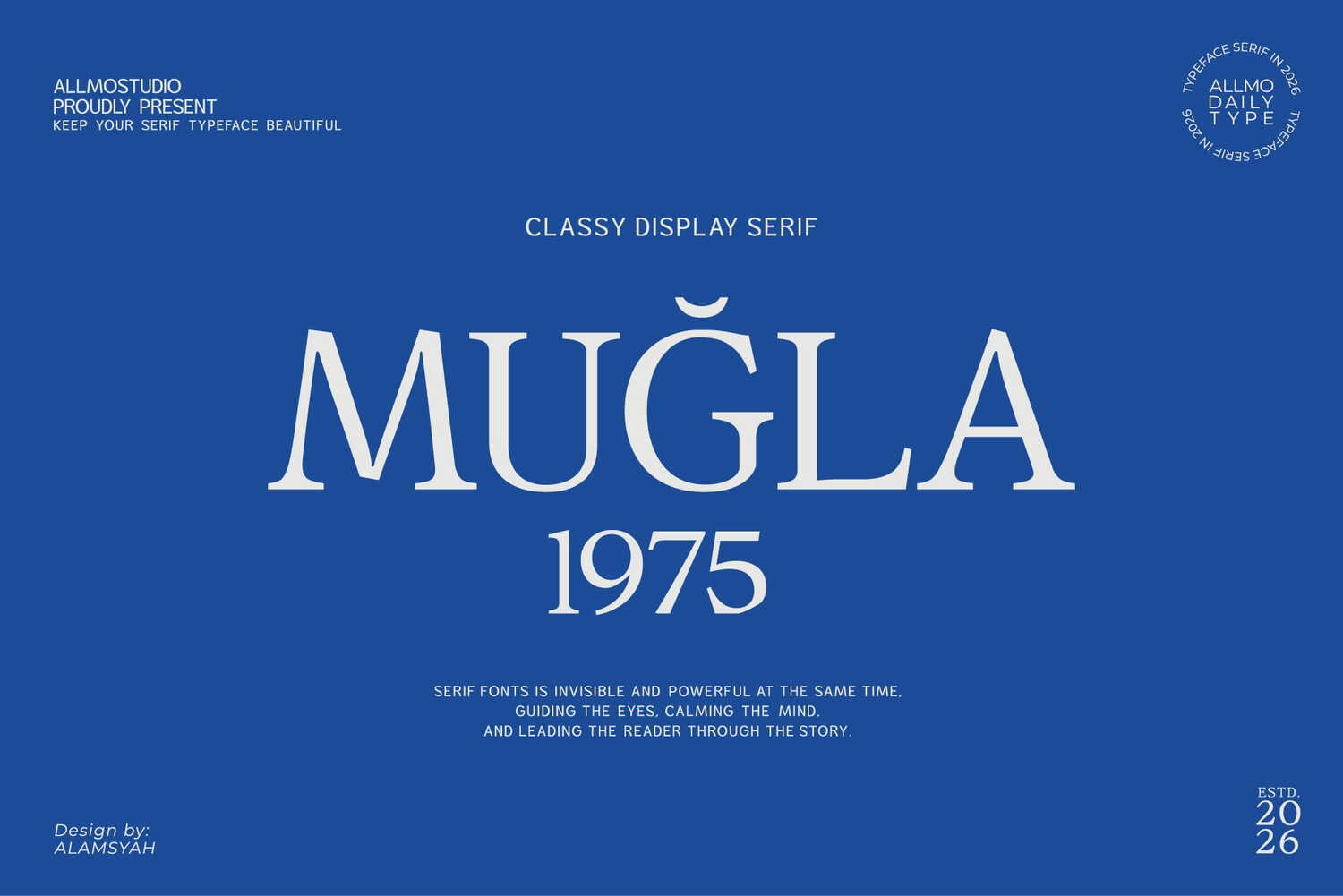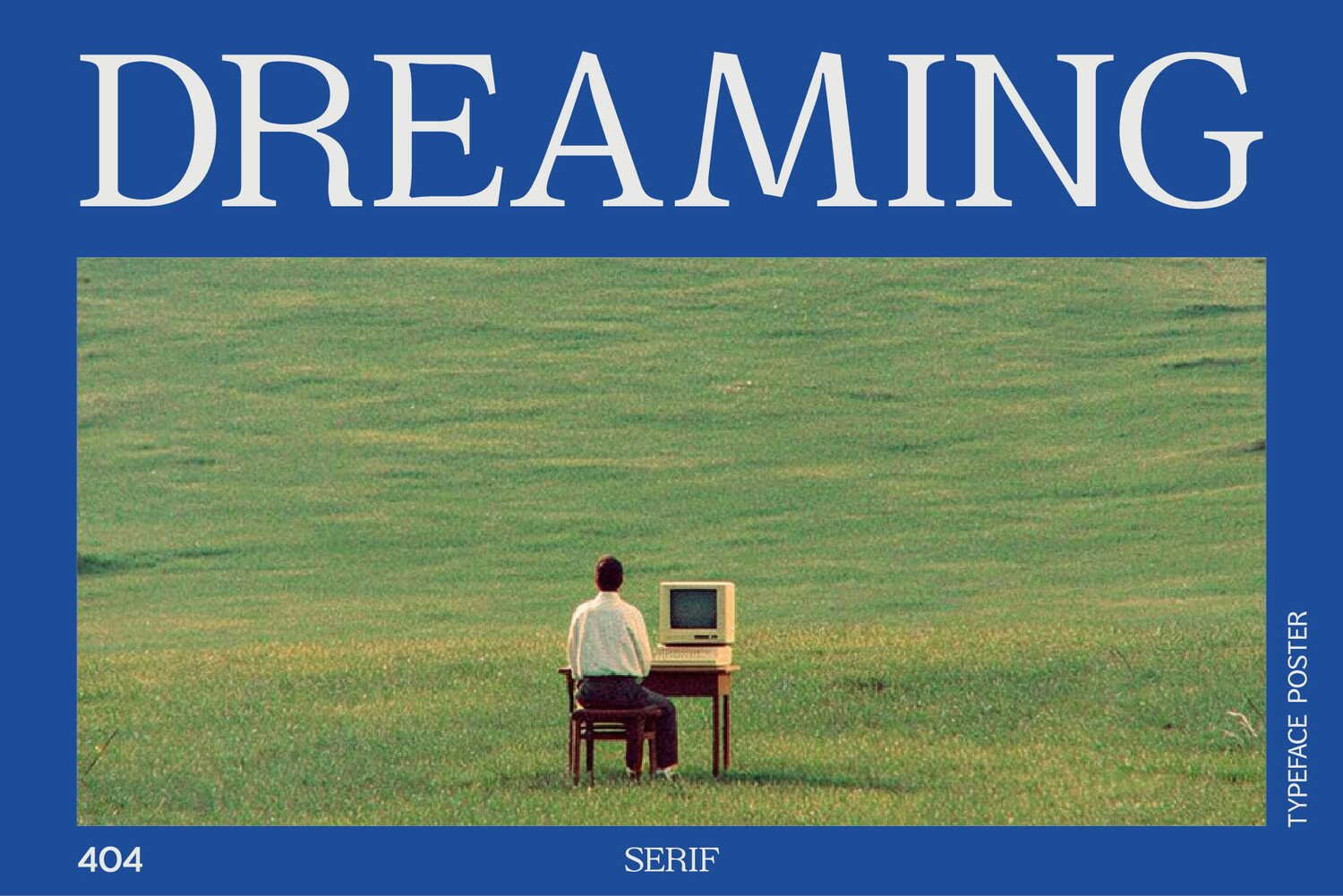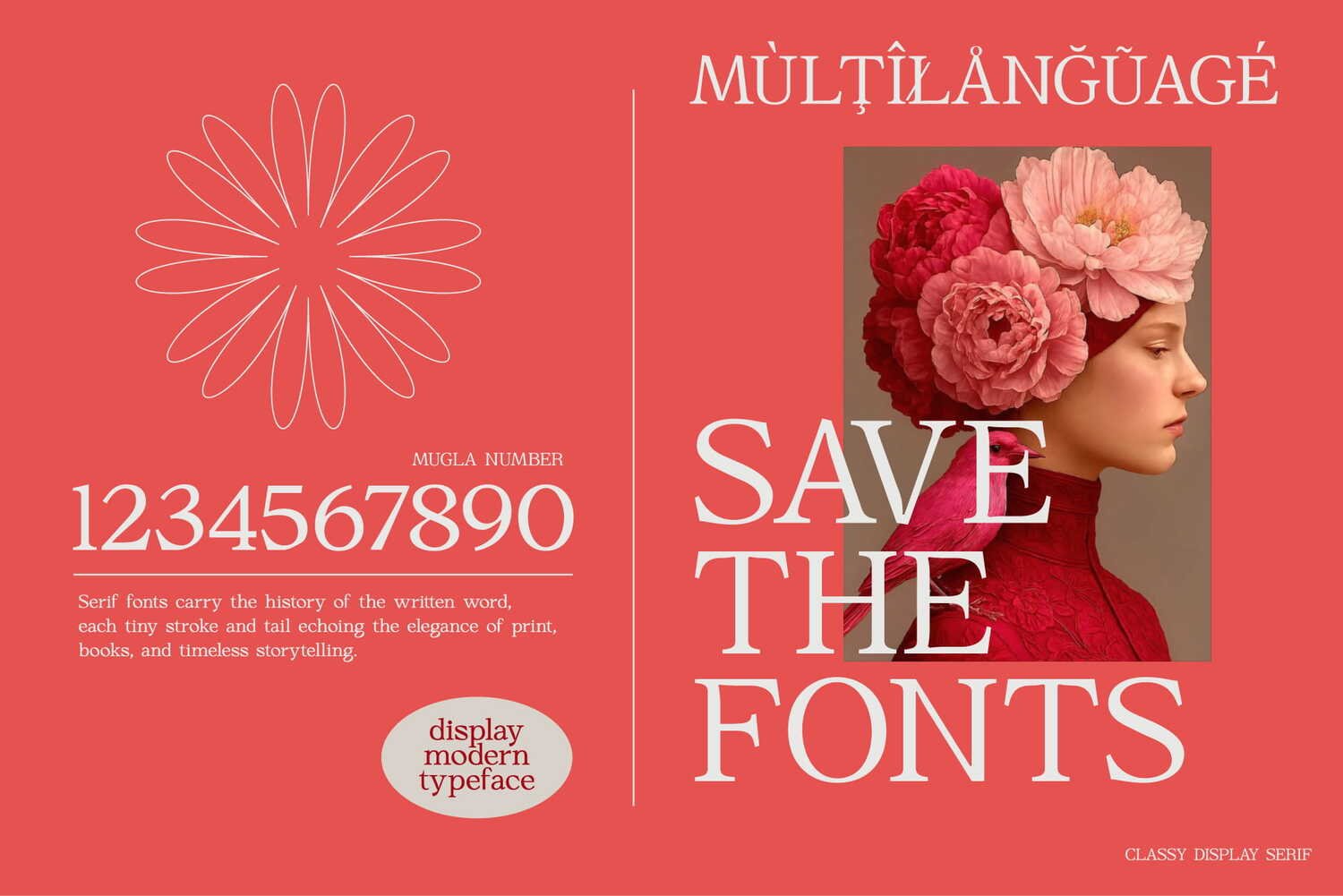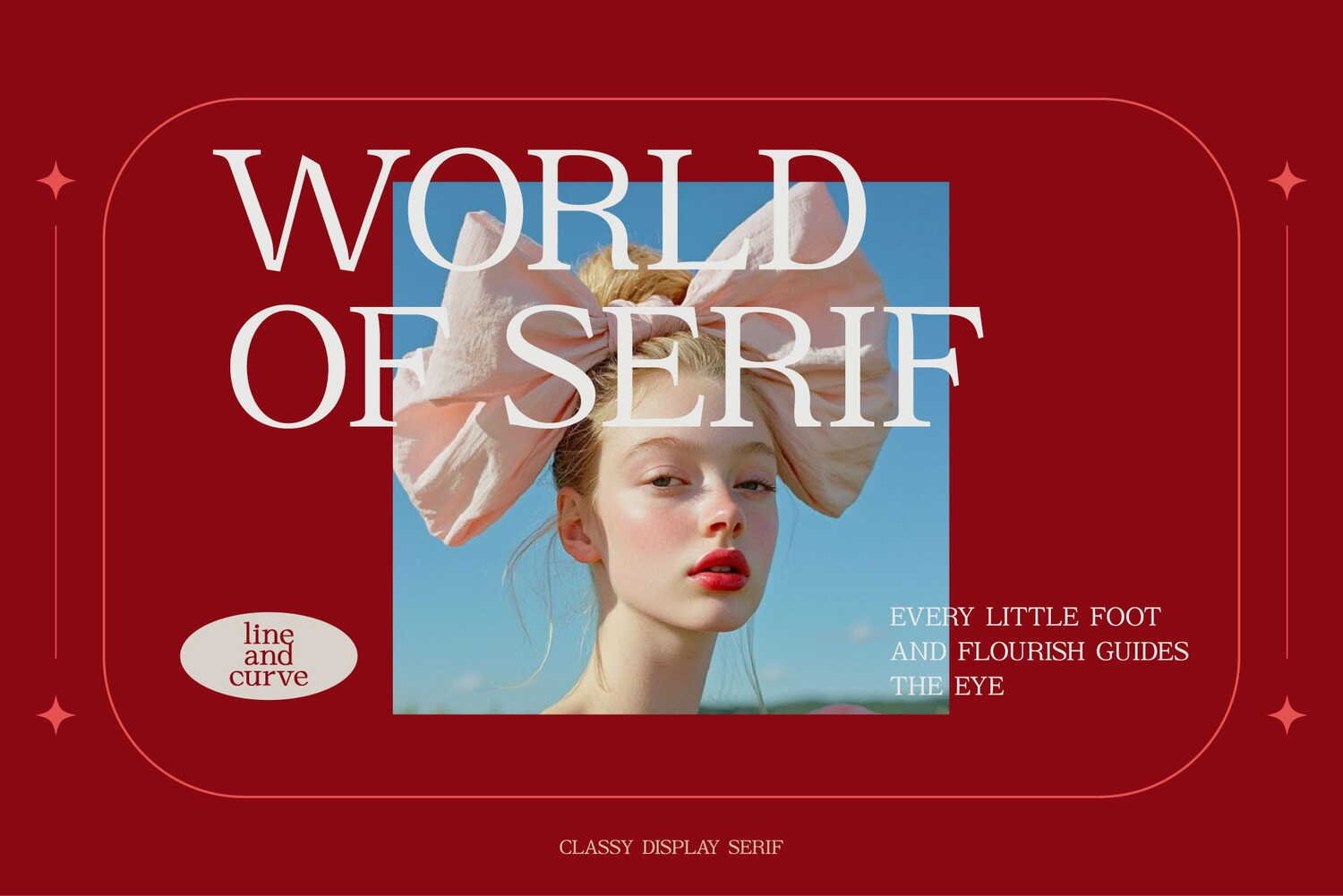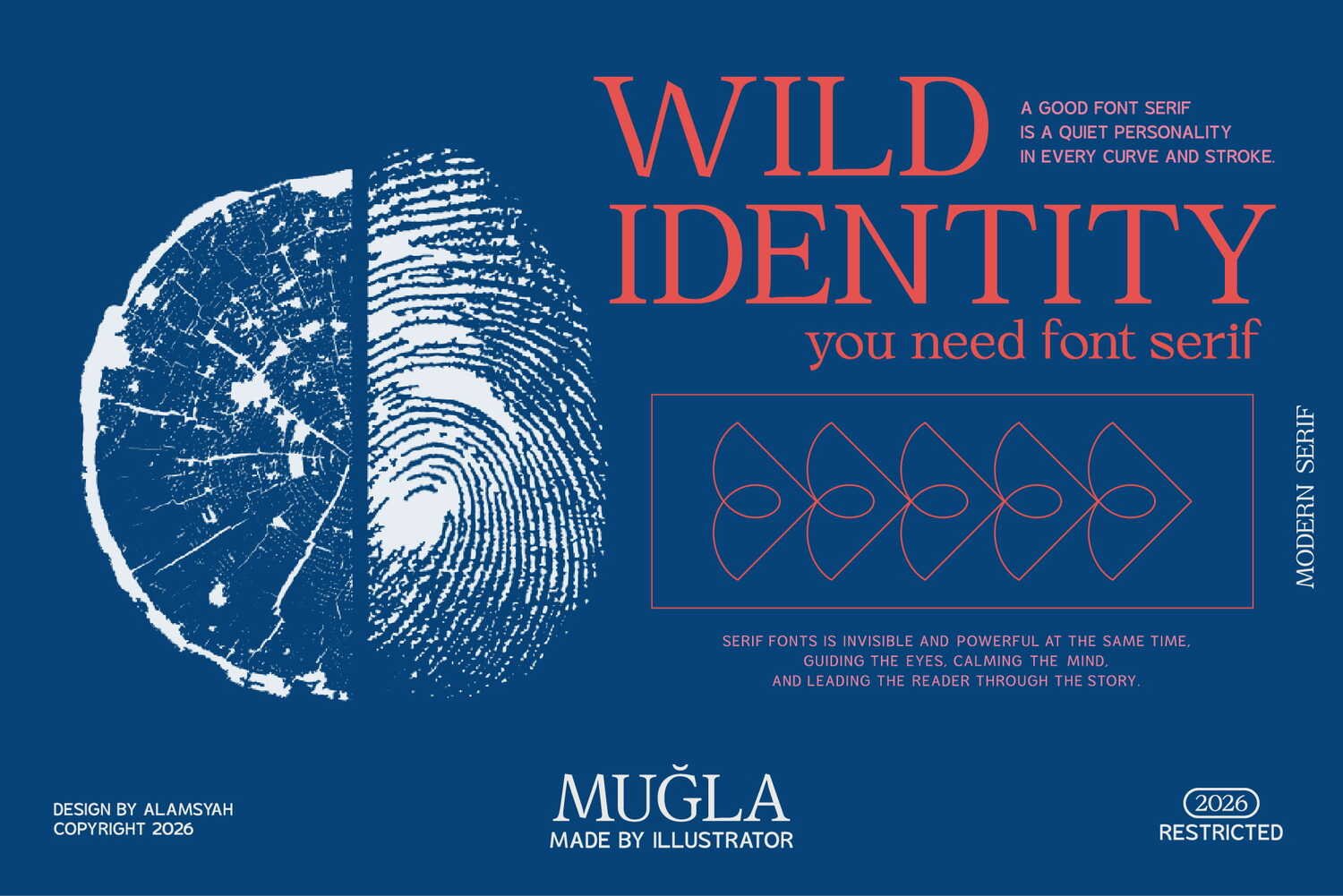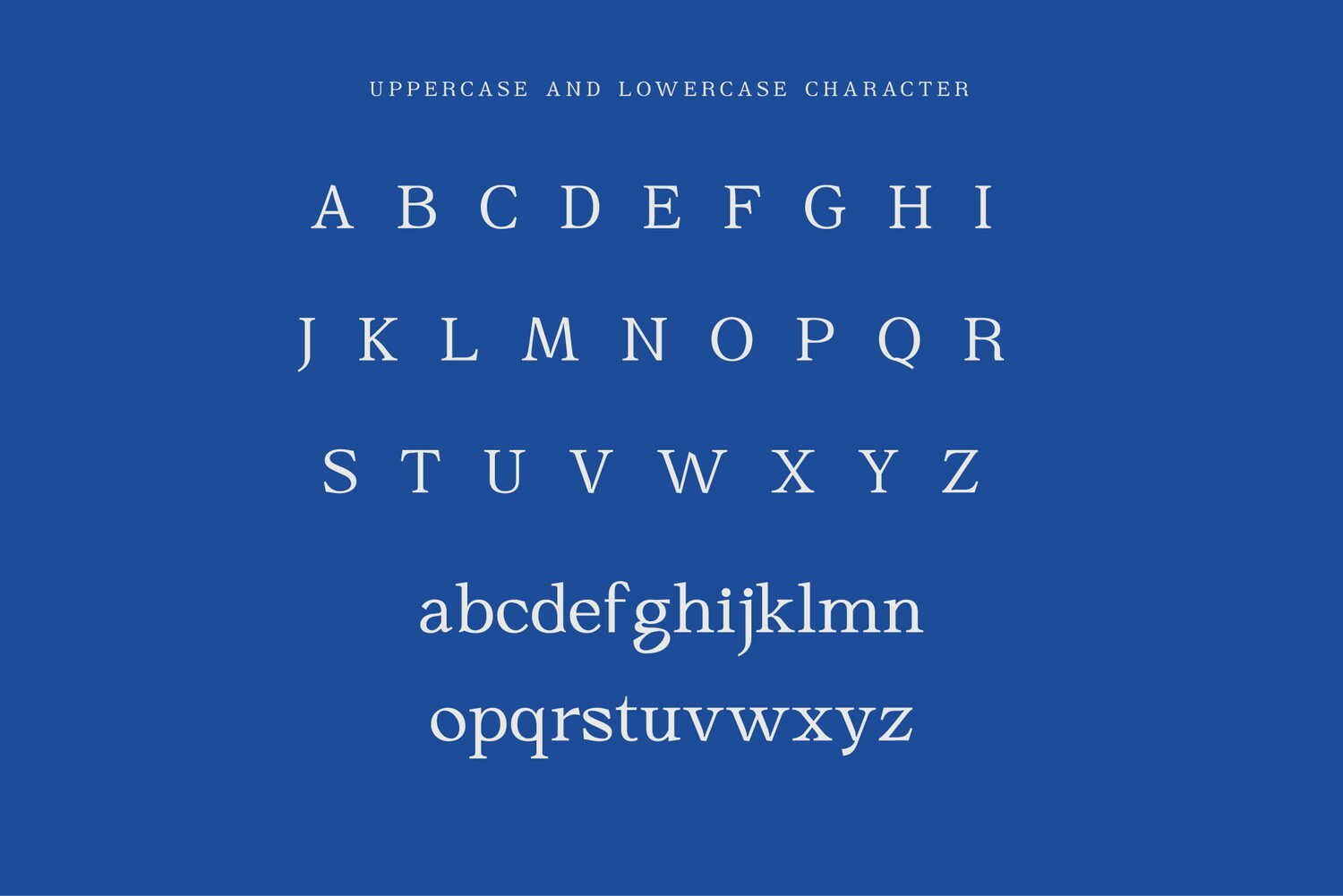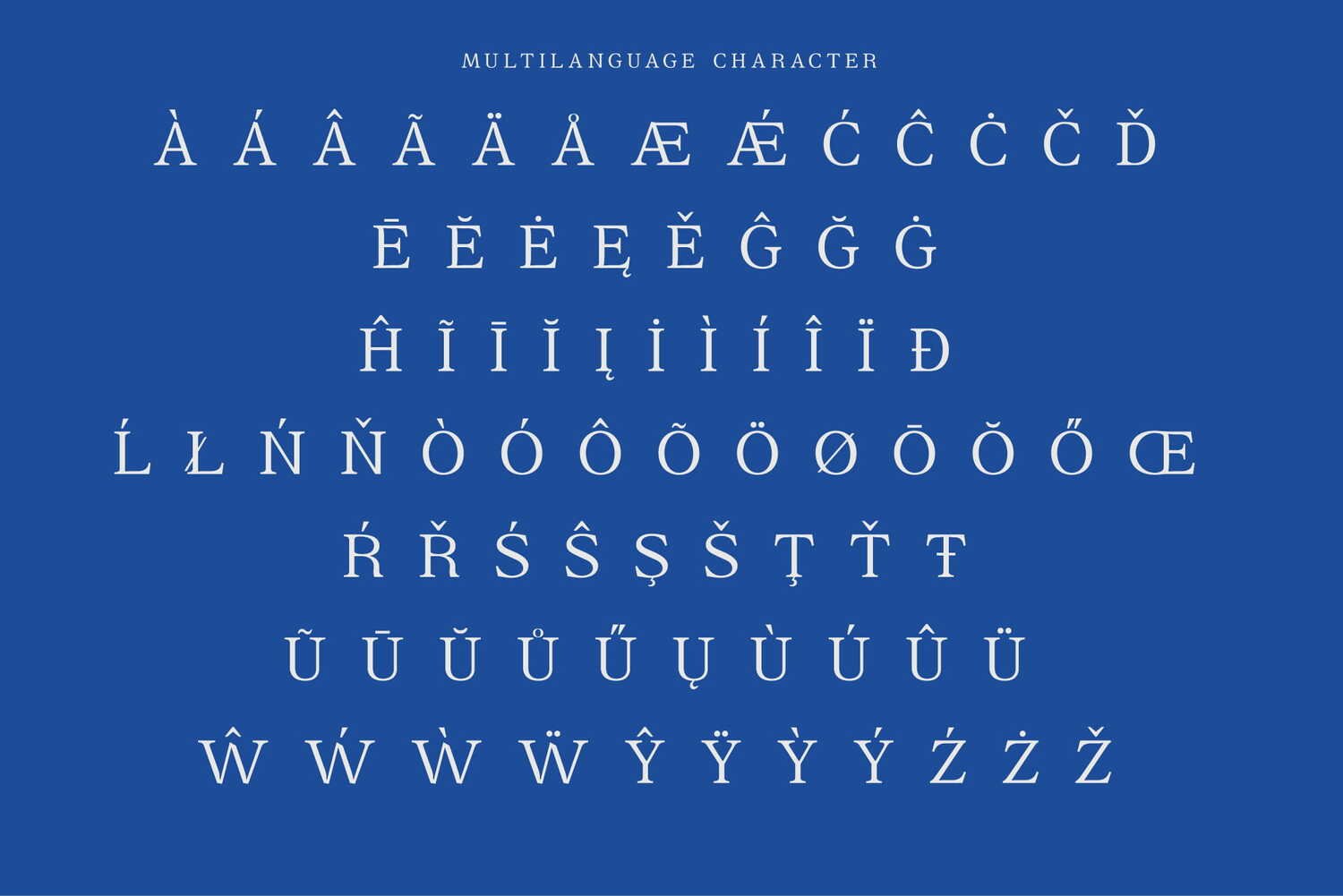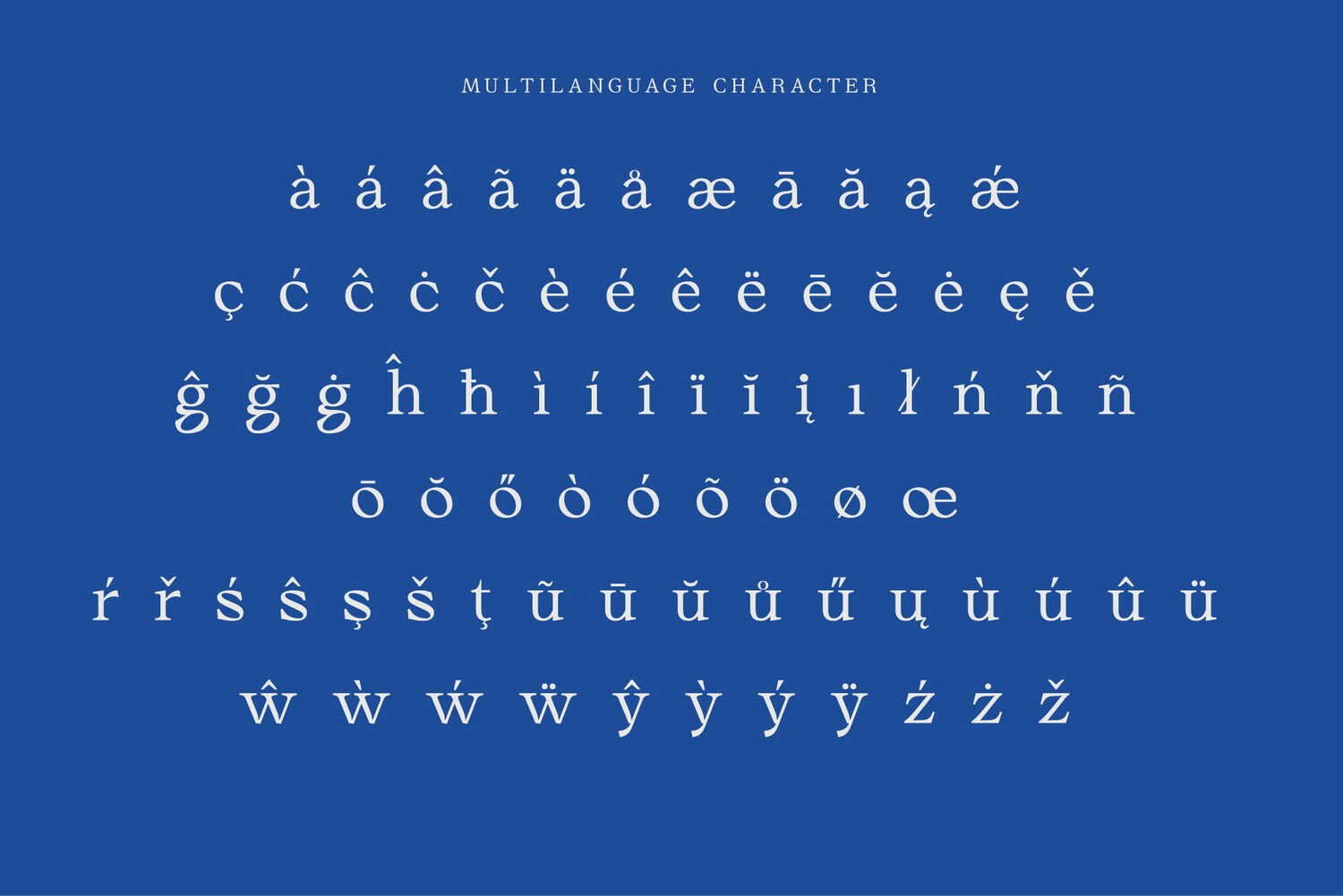
Muğla 1975 is a classy display serif font defined by its sharp serifs and elegant, high-contrast strokes, crafted to deliver a look of timeless sophistication. It’s the perfect choice for luxury branding, editorial headlines, magazine layouts, and premium packaging that demand a classic yet powerful presence.
Its clean, balanced characters are designed to be effortlessly stylish.
Designed to be both invisible and powerful, Muğla guides the eye with confidence and style, making it an essential typeface for designs that require a touch of classic authority.